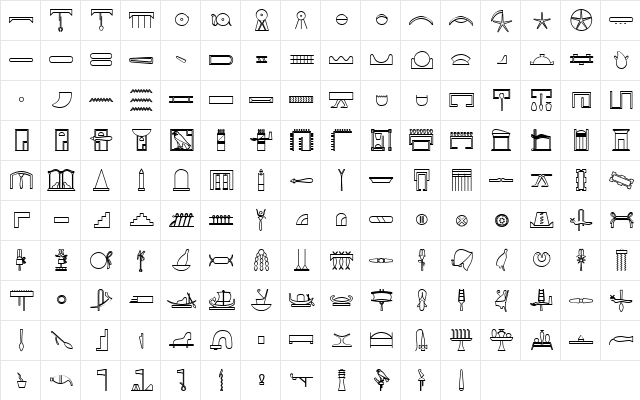
GlyphBasicC Bold
Design Context for GlyphBasicC Typeface
GlyphBasicC is a composed and adaptable typeface that performs quietly and consistently across a wide range of design contexts. The heavy weight commands attention and anchors typographic hierarchies.